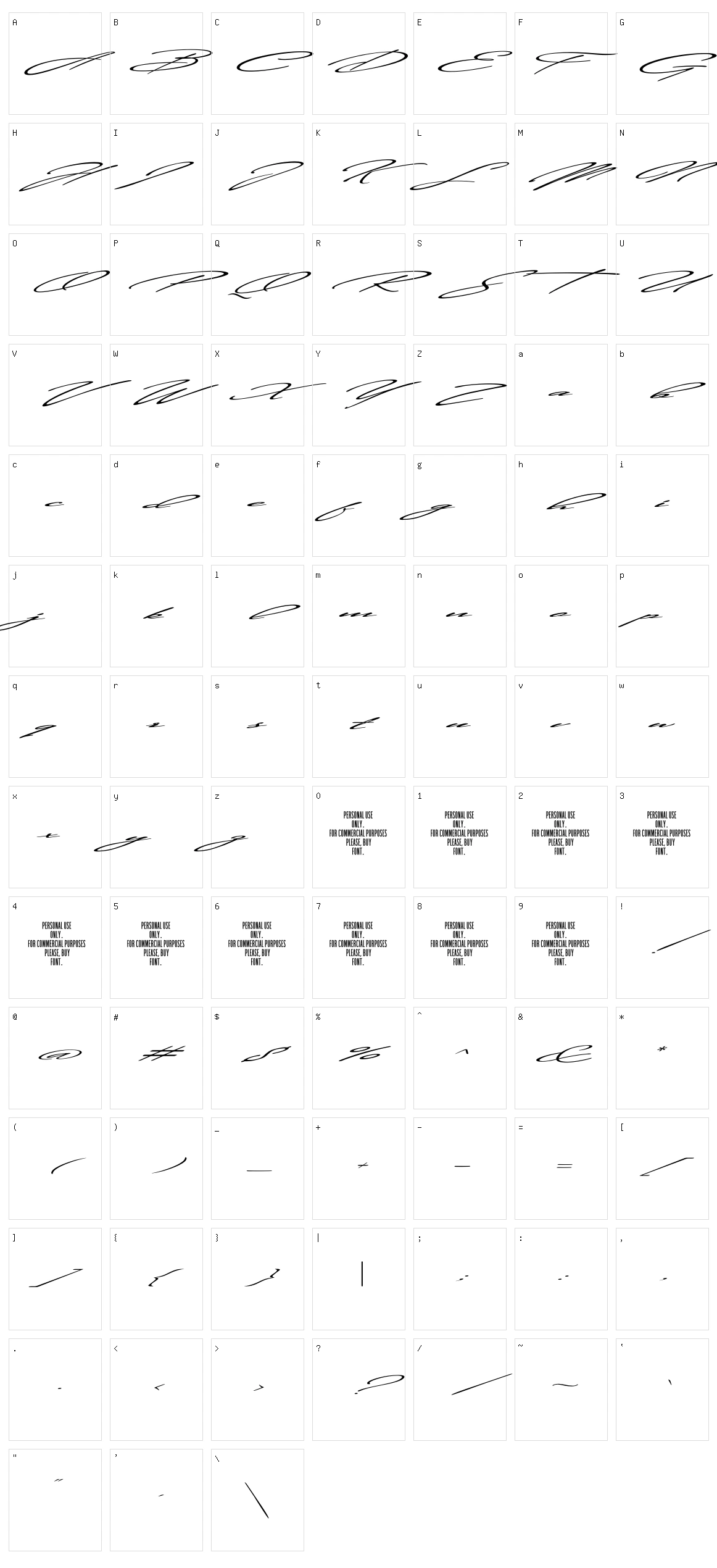
The free font Olean is carefully designed by andfonts, showcasing a thoughtful balance of creativity and usability and falls under the Script font style. When you download the ZIP file, it contains only 279.61 KB of font files, making it lightweight and quick to download. Please review the license details below to understand permitted usage and distribution rights. If license information is not available, we recommend using this font for personal projects only or contacting the author directly for commercial usage permissions.